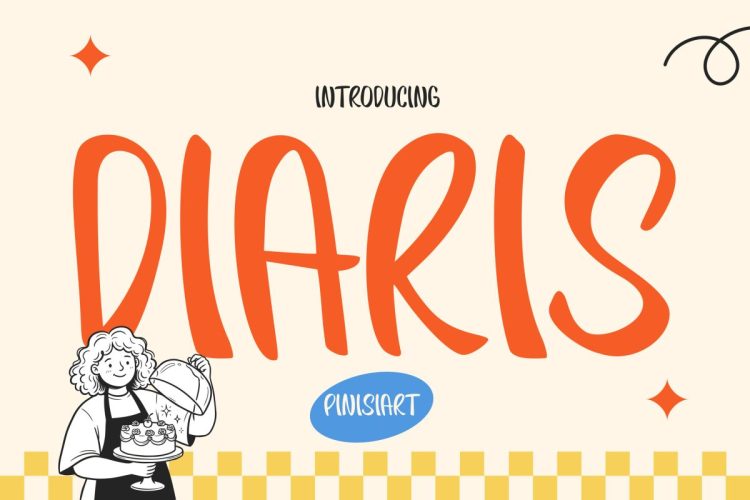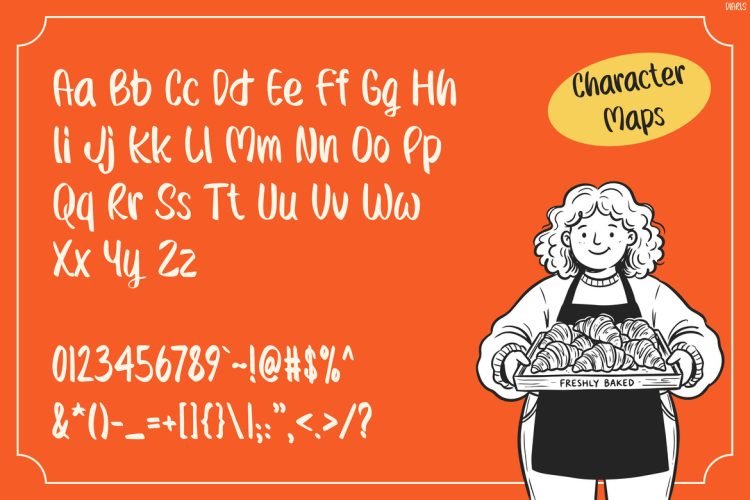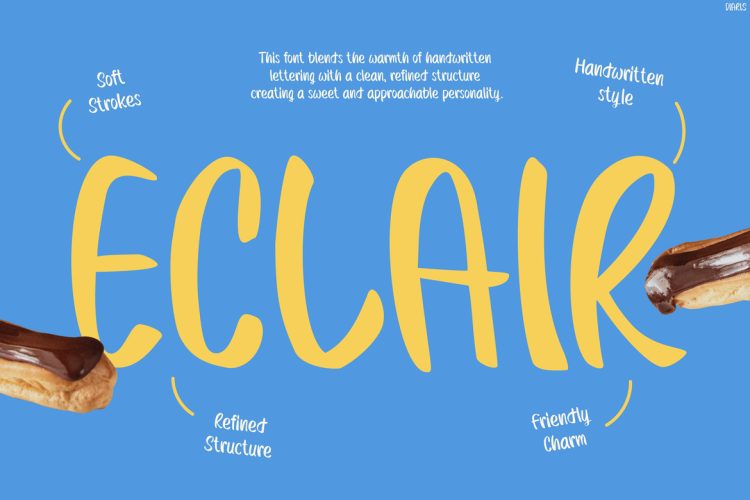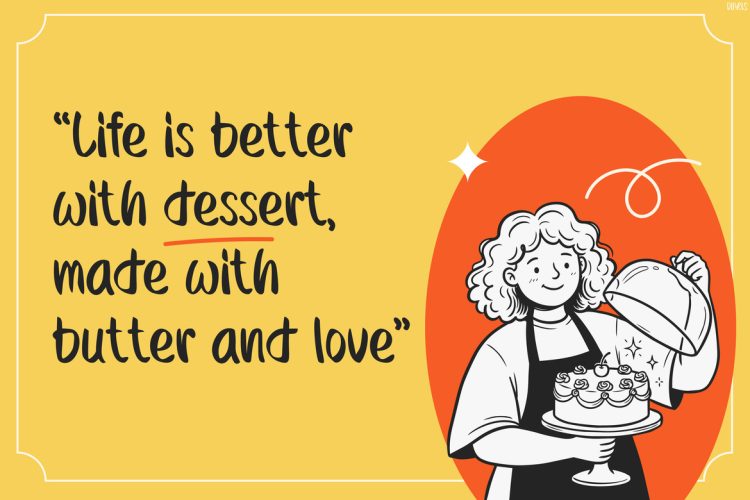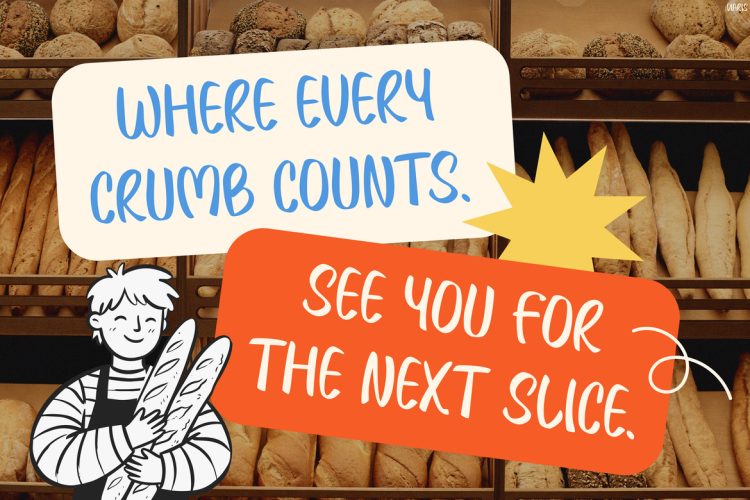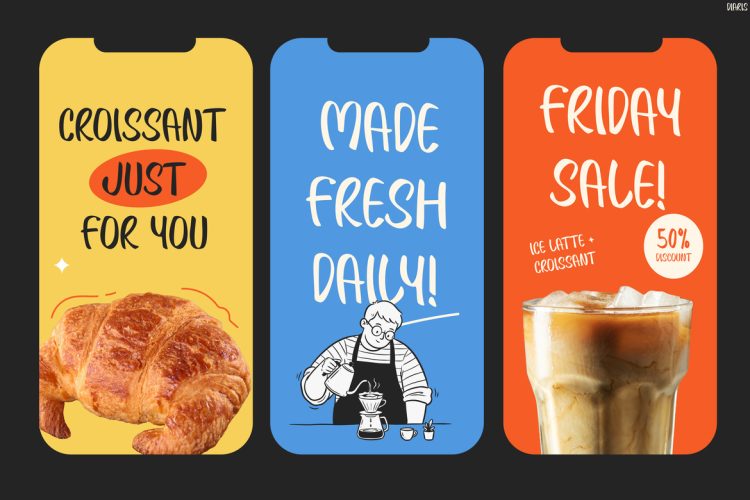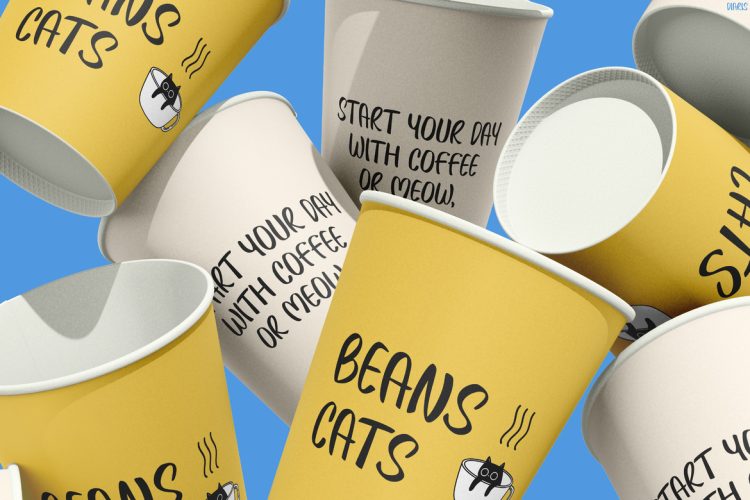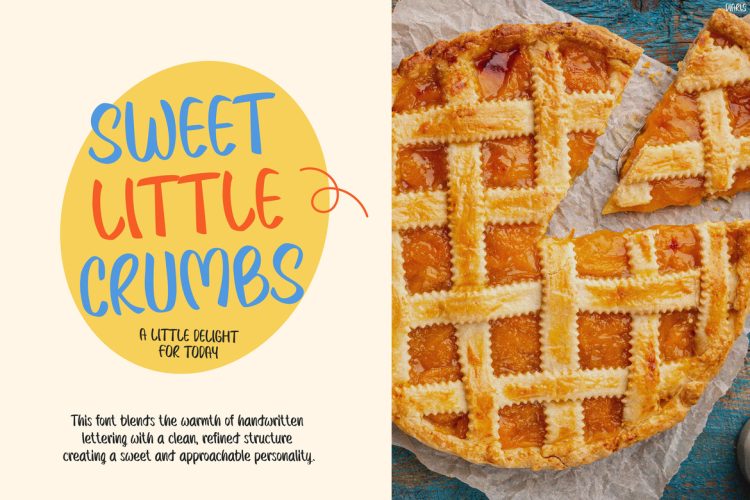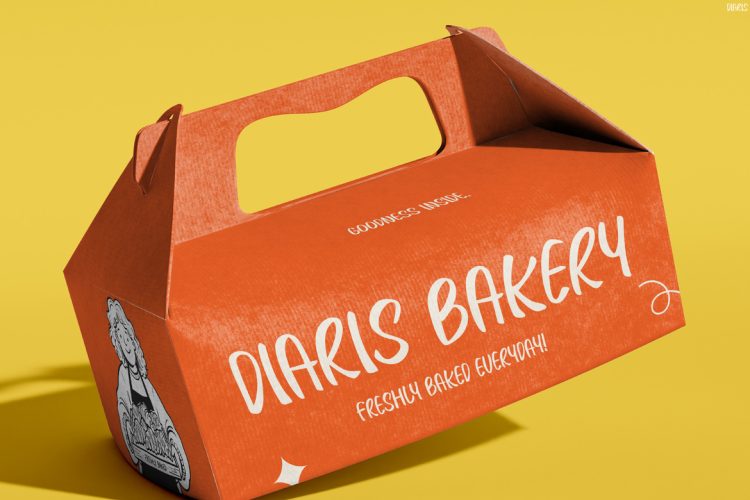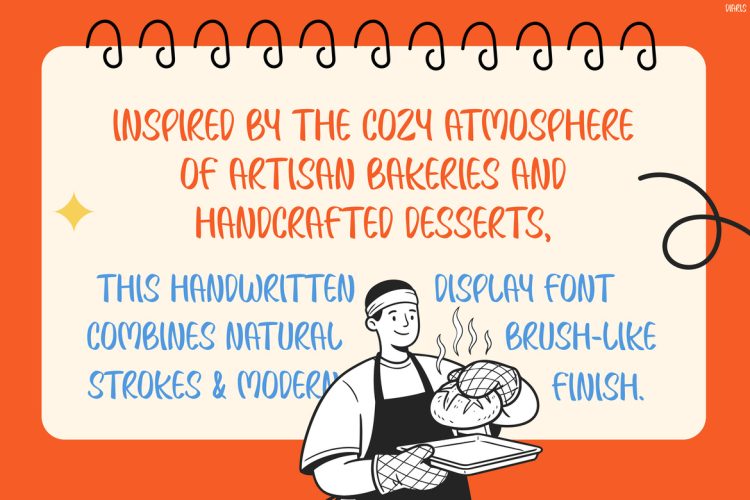
Handwriting Font Diaris โย Fresh Strokes. Sweet Moments. Handmade Happiness.
Handwriting Font Diaris brings the comforting charm of artisan bakeries and cozy cafรฉs into every design with its playful handwritten strokes and warm, handcrafted personality. Unlike ordinary handwriting fonts, Diaris blends natural brush movement with soft, rounded forms to create typography that feels genuine, welcoming, and full of flavor. Moreover, every letter carries a relaxed rhythm that makes headlines feel personal and inviting. As a result, your designs instantly create a friendly atmosphere that people remember. In addition, its expressive style balances creativity with readability, so every word remains clear across print and digital projects. Whether you’re designing bakery branding or cafรฉ promotions, Diaris turns simple messages into delightful visual experiences.
Baked for Creative Brands and Everyday Stories
Handwriting Font Diaris helps designers build branding that feels authentic, warm, and handcrafted. Not only does it give every headline a cheerful personality, but it also creates an emotional connection through its casual handwritten style. Furthermore, it fits bakeries, coffee shops, cafรฉs, dessert brands, artisan packaging, menu boards, food labels, recipe books, greeting cards, social media content, lifestyle blogs, seasonal promotions, farmers’ markets, and handmade businesses. Meanwhile, its flowing strokes keep every composition lively, while its balanced structure maintains excellent readability. Consequently, every project feels more inviting, memorable, and full of homemade charm.
Handwriting Font Diaris Perfect For
- Bakery branding
- Coffee shops and cafรฉs
- Dessert packaging
- Food labels
- Restaurant menus
- Handmade product branding
- Social media graphics
- Lifestyle and recipe content
Bake More Personality into Every Design
If you want typography that feels warm, handcrafted, and naturally inviting, Diaris is ready to become your secret ingredient. Furthermore, its friendly handwritten style makes every project feel more authentic. At the same time, its clean flow keeps every layout polished and readable. Therefore, your audience connects with your brand more easily and remembers it longer. Finally, choose Diaris today and serve every design with a touch of homemade happiness.